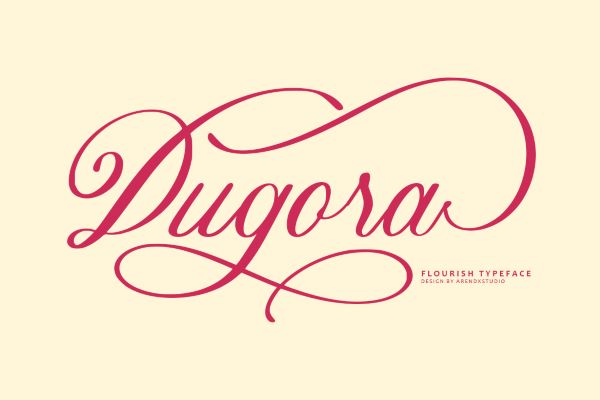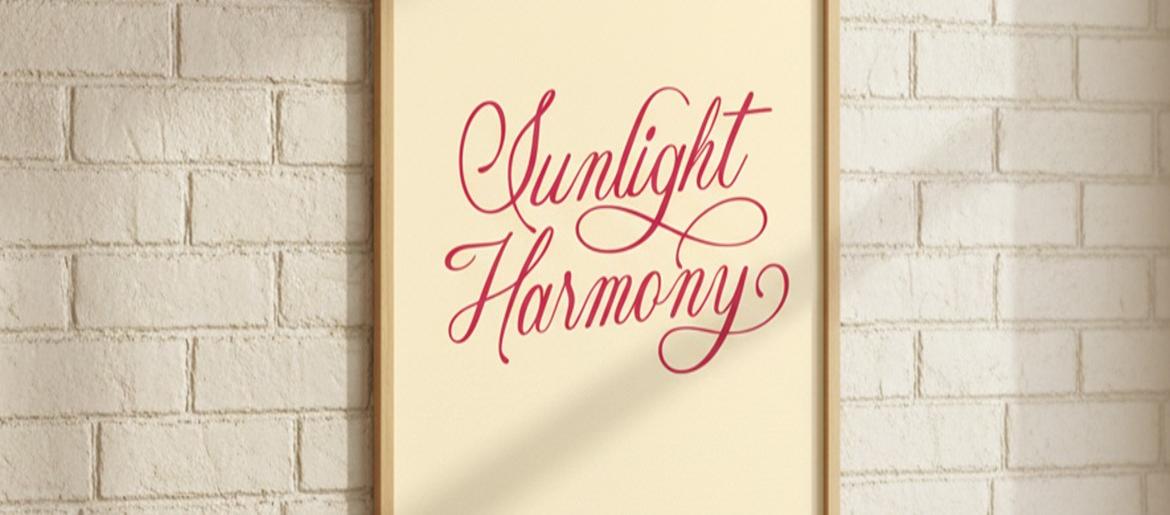
Dugora Font
Dugora is an elegant flourish script typeface with sweeping, decorative strokes and the graceful rhythm of fine calligraphy. Its ornamental letterforms and flowing connections make it a compelling choice for wedding stationery, luxury packaging, editorial headers, and branding where a sense of refined occasion and handcrafted beauty is the intended tone of the design.